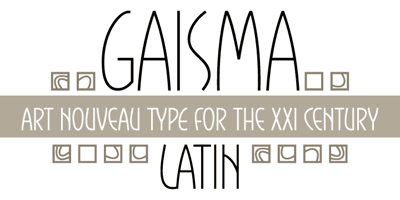
Gaisma Latin
Gaisma Latin font
Gaisma Latin Font Family was designed by Kristians Šics and published by Lamatas un Slazdi. Gaisma Latin contains 4 styles and family package options. Art Nouveau typeface “Gaisma Latin” (“Light” in Latvian) draws inspiration from Vienna Secession movement and Nordic National Romanticism. The work on the design started as drawings of several characters for the graphic standard for the Jugendstil museum in Riga. It contains characters for all the European languages as well as a huge set of contextual and stylistic alternates and historical characters to replicate texts of the era.